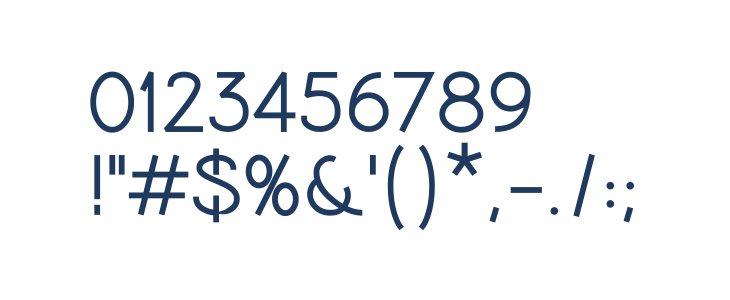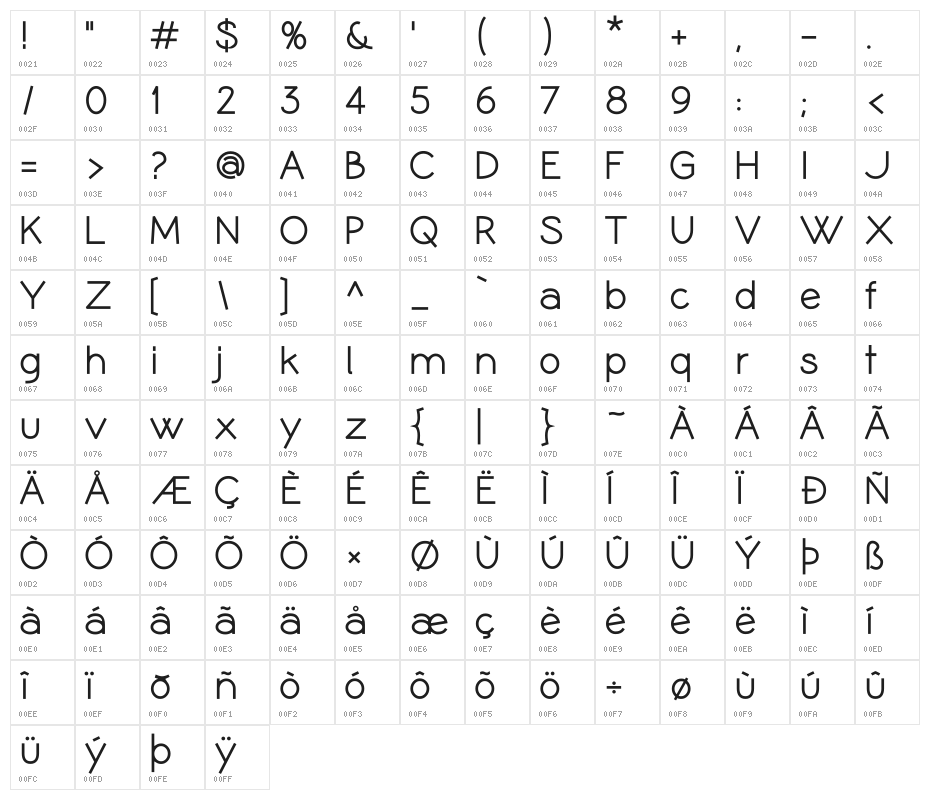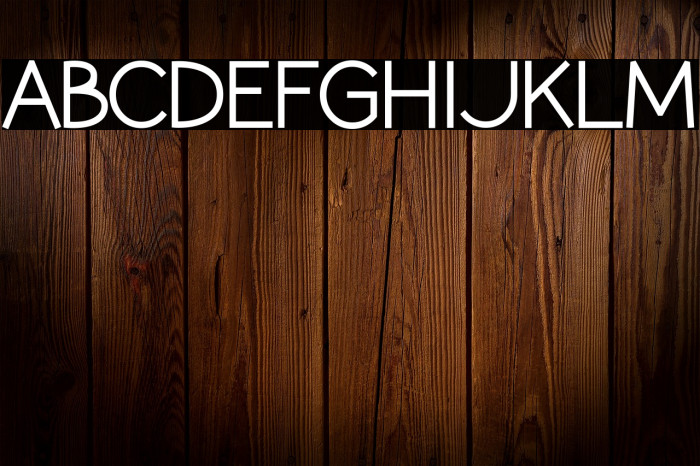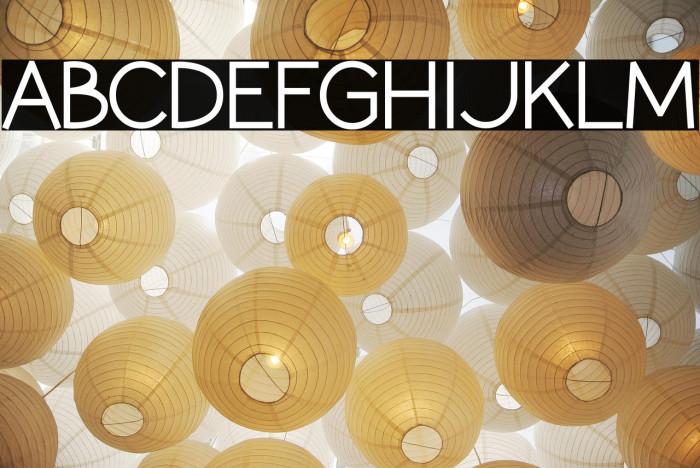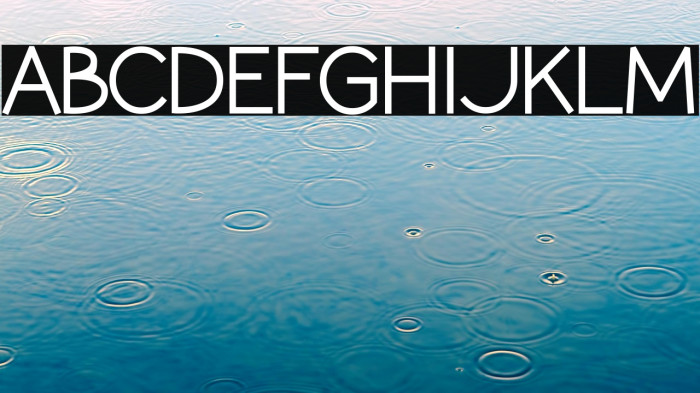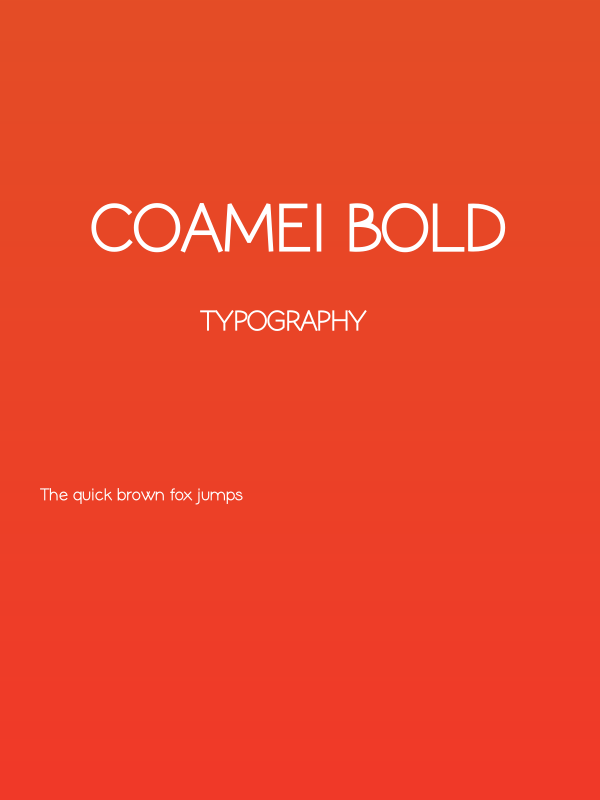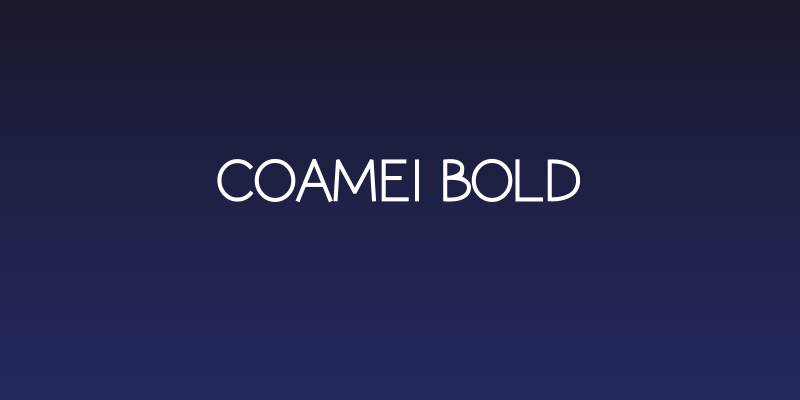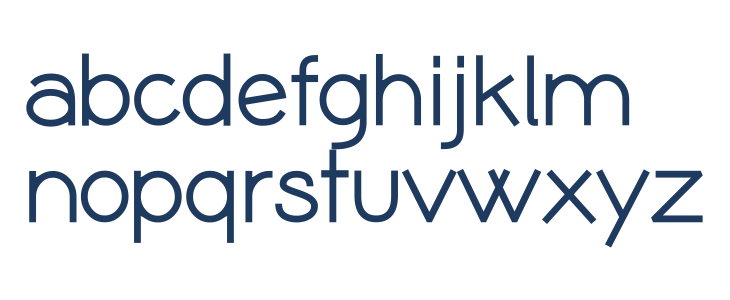
Coamei Bold Font
Coamei Bold Description
This font features a clean and modern sans-serif design with uniform stroke widths, giving it a sleek and contemporary appearance. The characters are well-proportioned with a geometric influence, evident in the circular shapes of the 'O' and '0', and the symmetrical design of letters like 'A' and 'V'. The uppercase and lowercase letters maintain a consistent style, providing a harmonious look across different text sizes. The numerals are clear and distinct, making them easily readable. Special characters are designed to match the overall aesthetic, ensuring visual coherence.
Use CaseHeadlines, Logos, Web design
Proposed ProjectsIdeal for branding, advertising, web design, and editorial projects where a modern and clean look is desired.